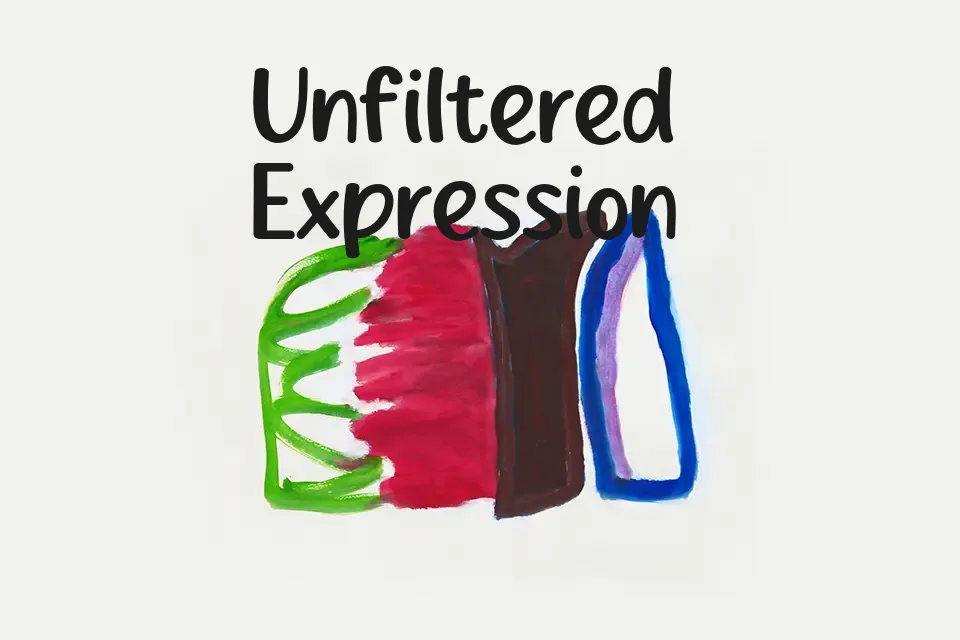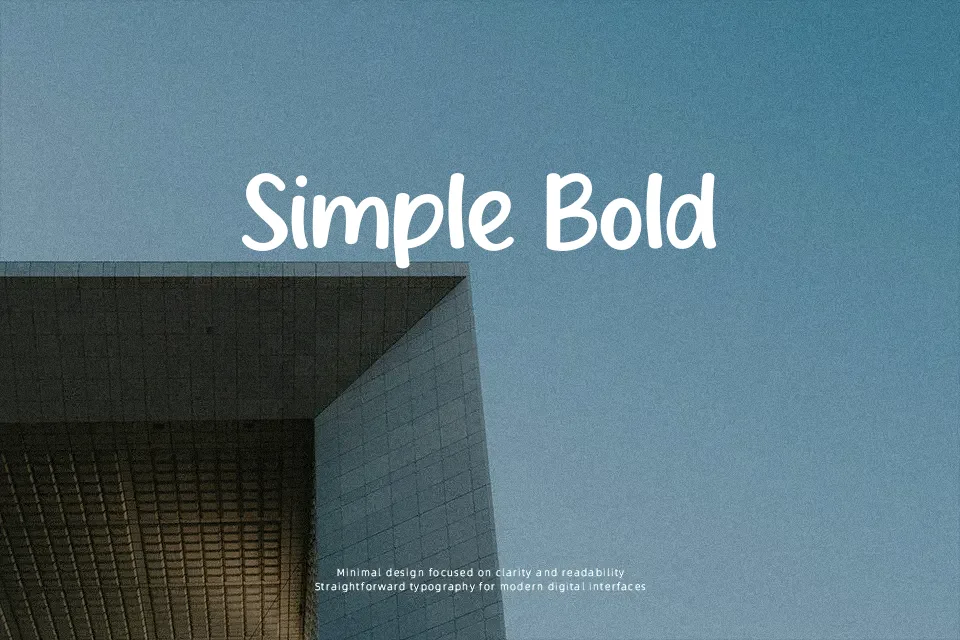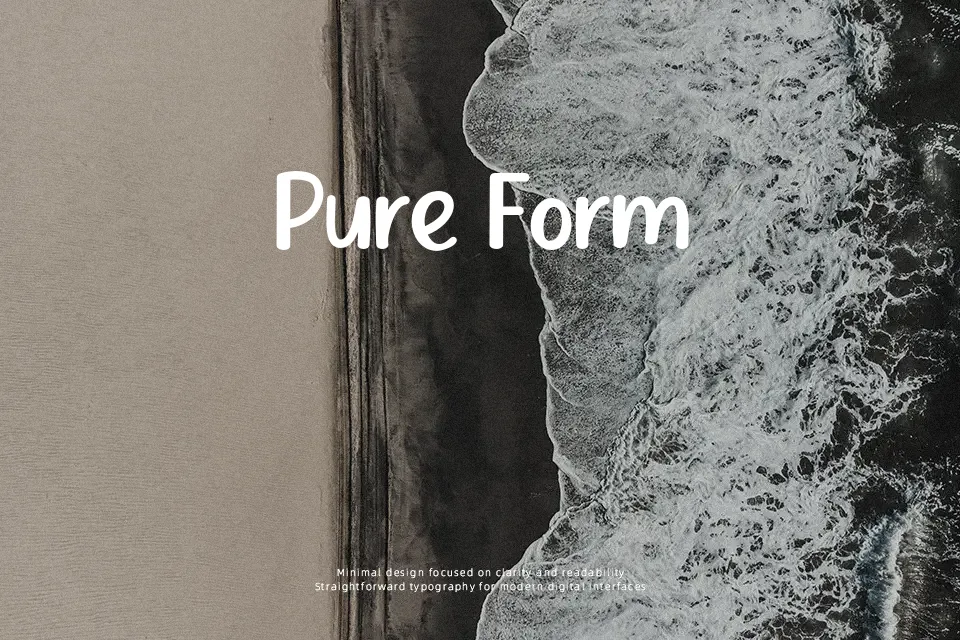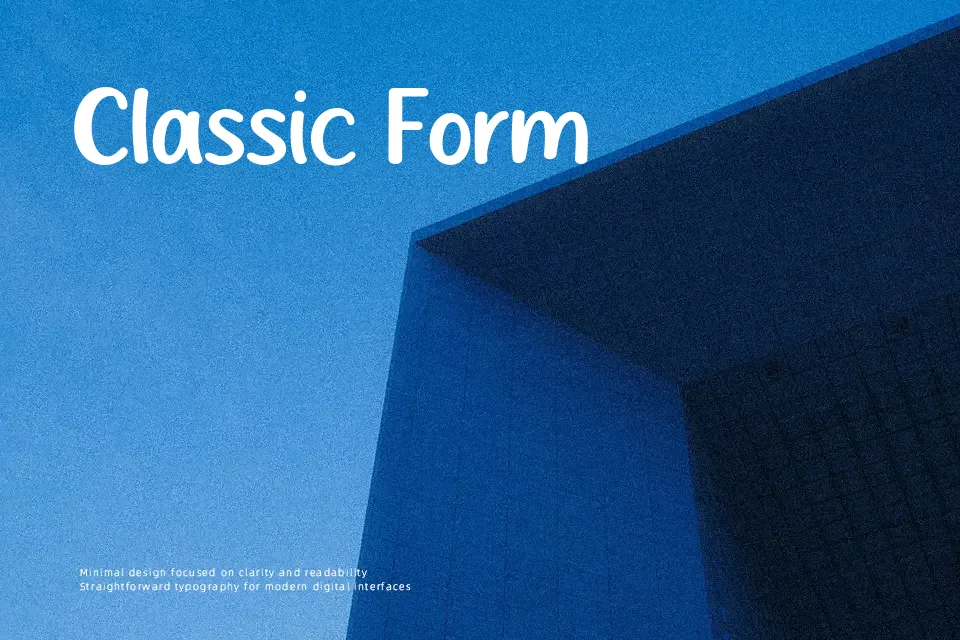
Peach Cake Font
Peach Cake Font uses thick, rounded letterforms with smooth curves, low stroke contrast, and broadly balanced proportions. The uppercase and lowercase characters maintain a consistent, playful rhythm, while the visible numerals and basic punctuation follow the same heavy, uncomplicated construction. Its generous shapes remain clear in large headlines and short labels, especially where a warm cartoon tone is useful. The spacing gives individual letters enough separation to read cleanly at display sizes. In practical terms, it works best when the wording is brief and prominent; the dense, weighty forms are less comfortable for small copy or extended reading.
Best For: children’s birthday invitations,playful product packaging,ice cream shop signage,social media headlines
Not Ideal For: long paragraph text,small interface labels,corporate reports,technical manuals